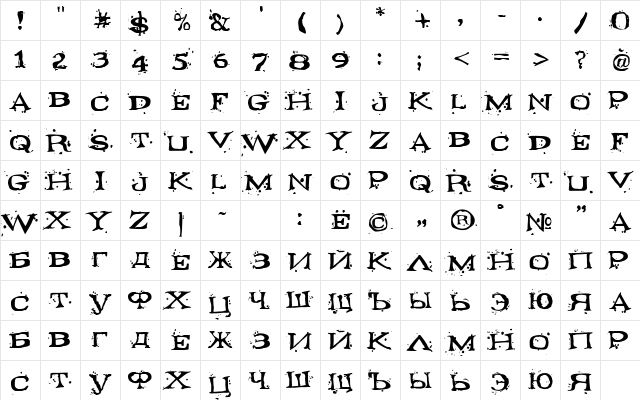
Fontocide Regular Free Font
Fontocide Regular
Design Context for Fontocide
Fontocide is a composed and adaptable typeface that performs quietly and consistently across a wide range of design contexts.